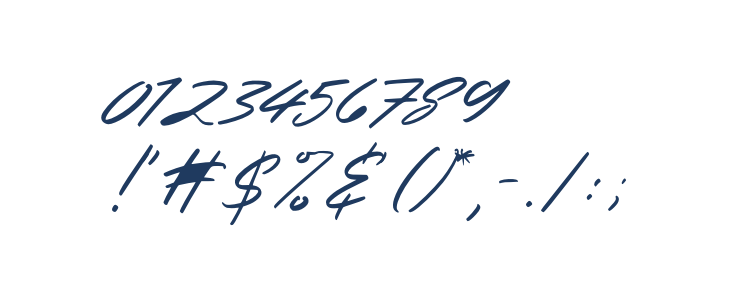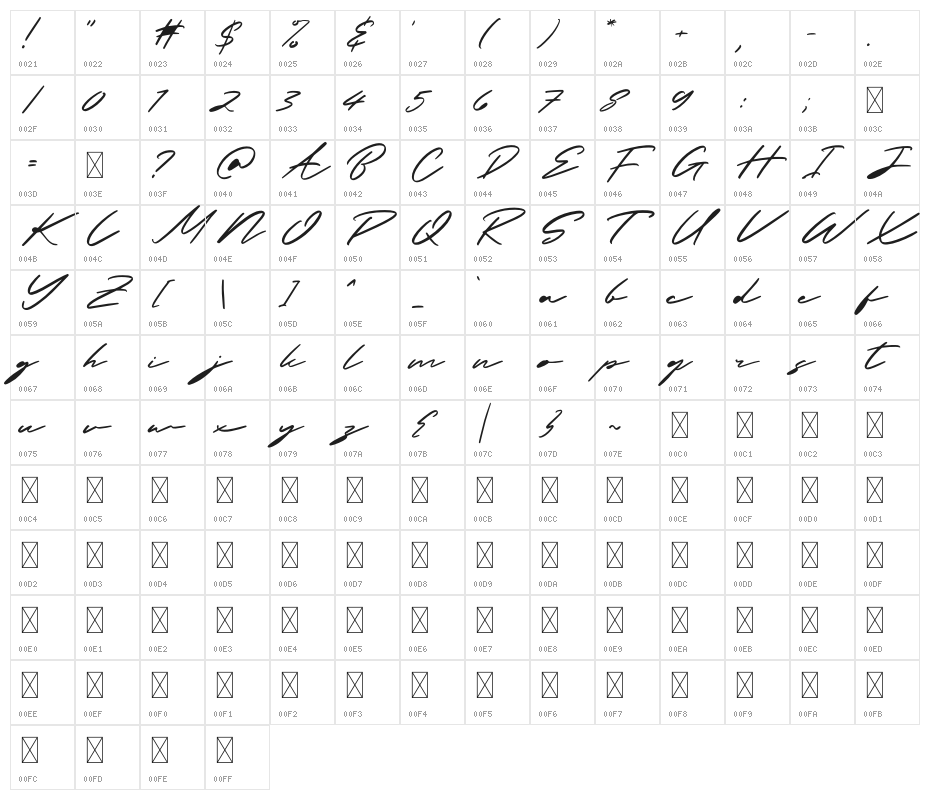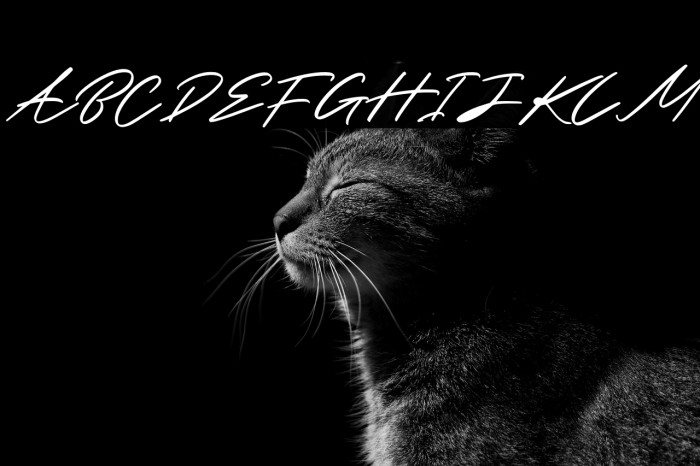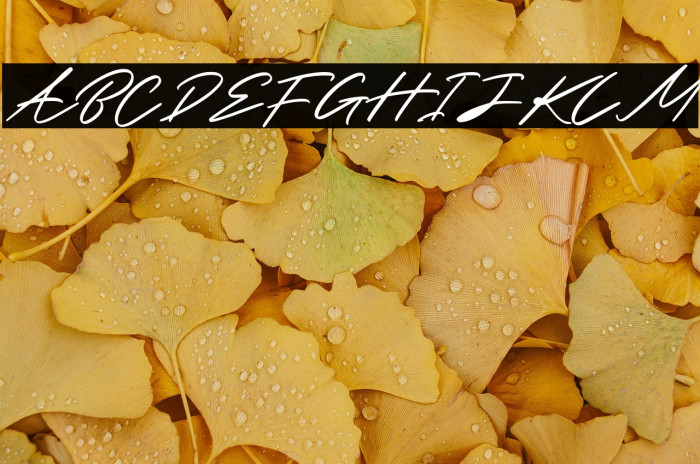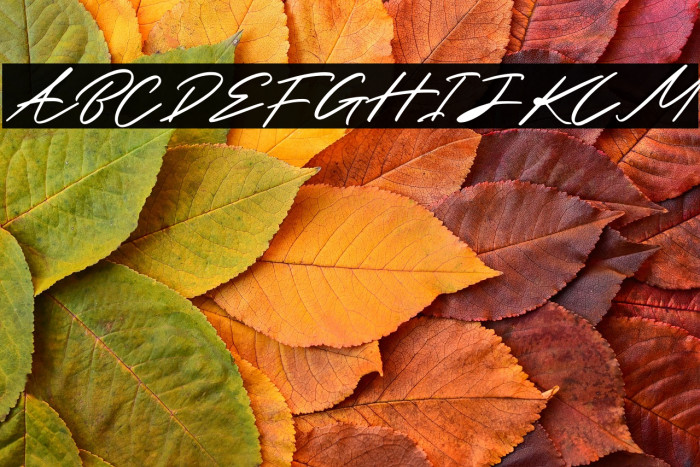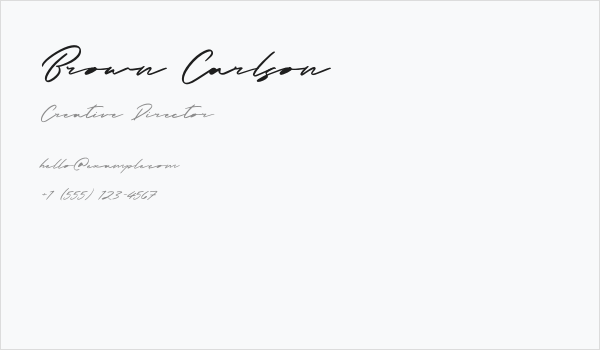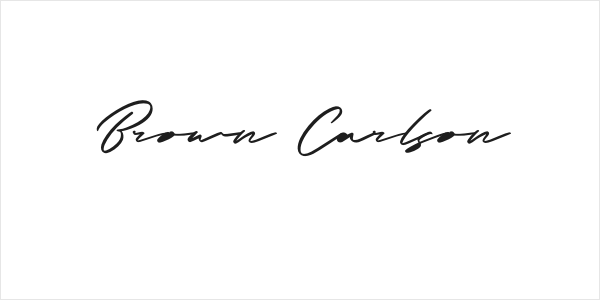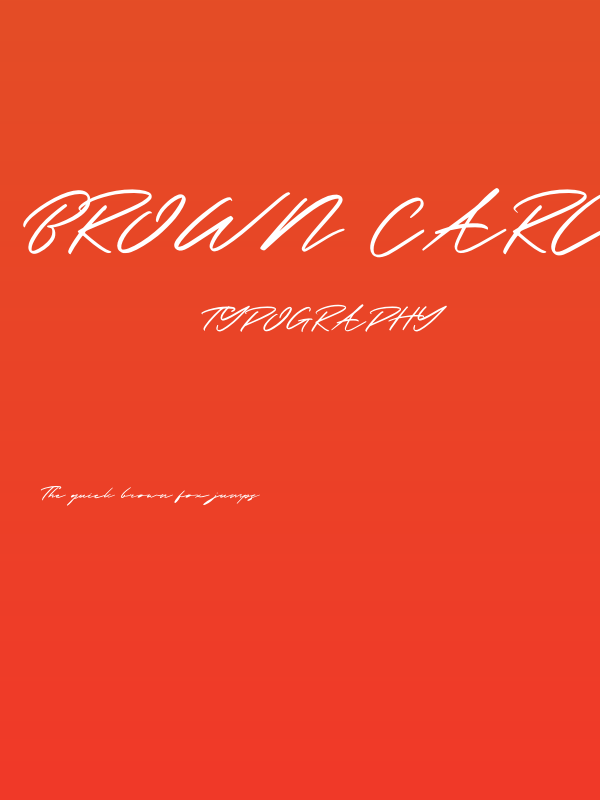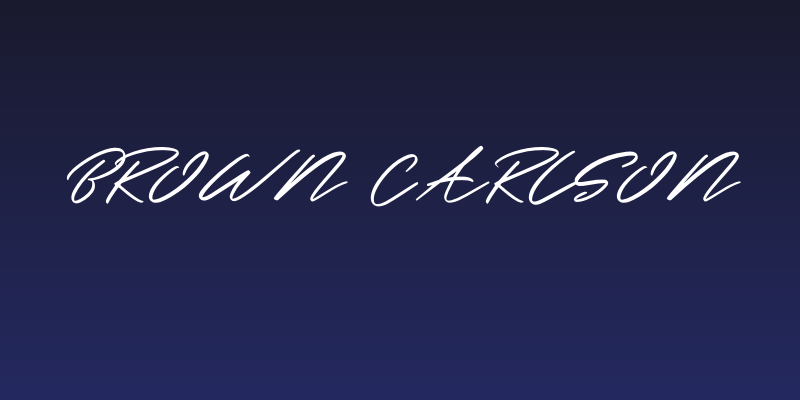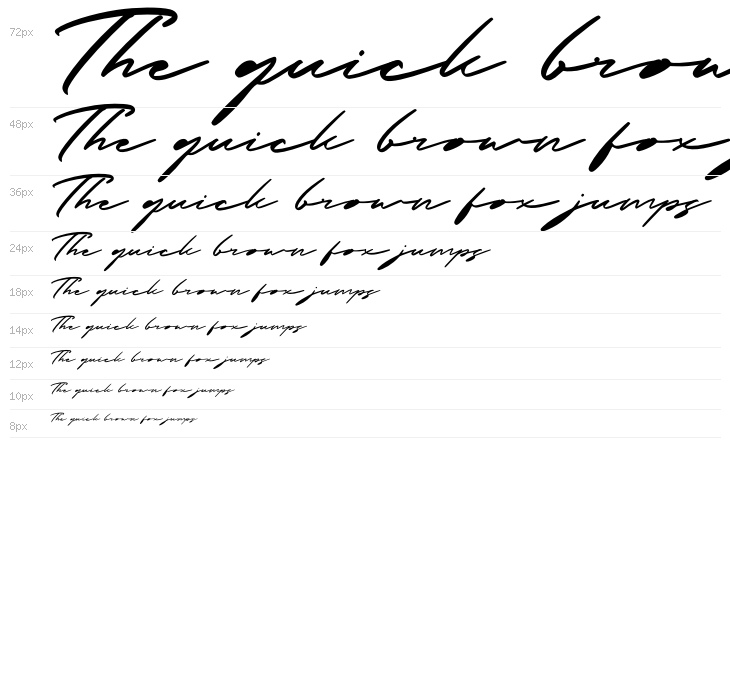
Brown Carlson Font
Brown Carlson Description
This font exhibits a dynamic and fluid script style, characterized by its elegant, cursive strokes that mimic the natural flow of handwriting. The letters are interconnected, creating a seamless and continuous look. The uppercase letters are slightly more embellished, with sweeping curves and loops, while the lowercase letters maintain a consistent rhythm and balance. The numerals and special characters follow the same flowing style, ensuring uniformity across all glyphs. The overall appearance is sophisticated and artistic, making it suitable for projects that require a personal and stylish touch.
| Proposed Projects | Ideal for wedding invitations, greeting cards, personal branding, and elegant packaging designs. |